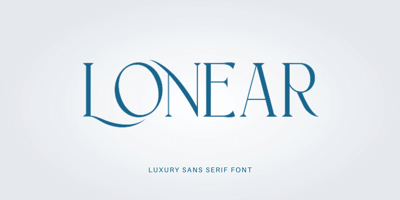
Lonear Font Family was designed by Ali Sifak Muftari and published by Liartgraphic. Lonear contains 1 styles and family package options. Introducing our latest product, we call this product the Lonear serif fontLonear is a modern type fontWith a unique and firm touchLonear hight font is great to use on:fashion magazines, logos, photography, landing pages, flyers, social media and so onWhat’s included- Lonear font- multilingual support- alternatives- ligaturesThank you, best regardsLiarttyype